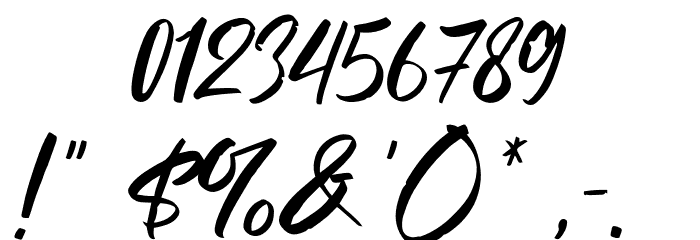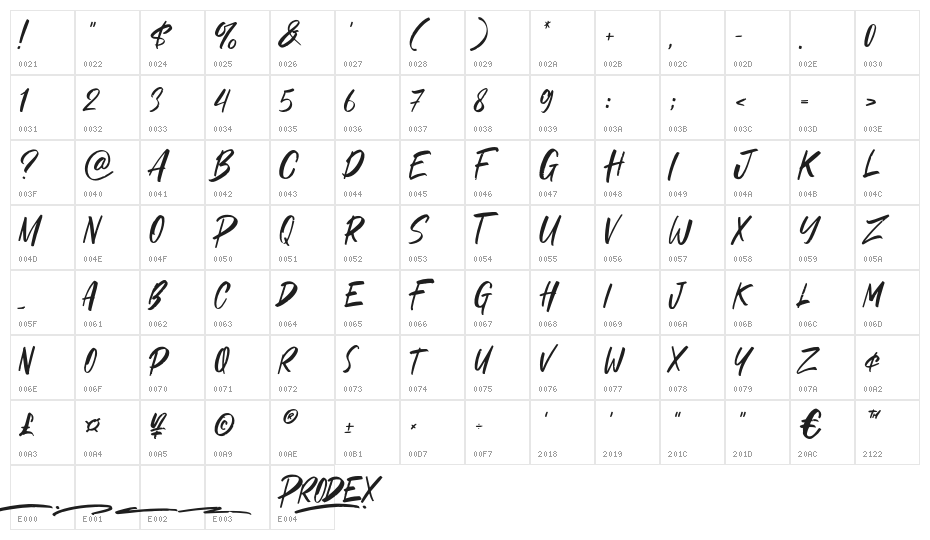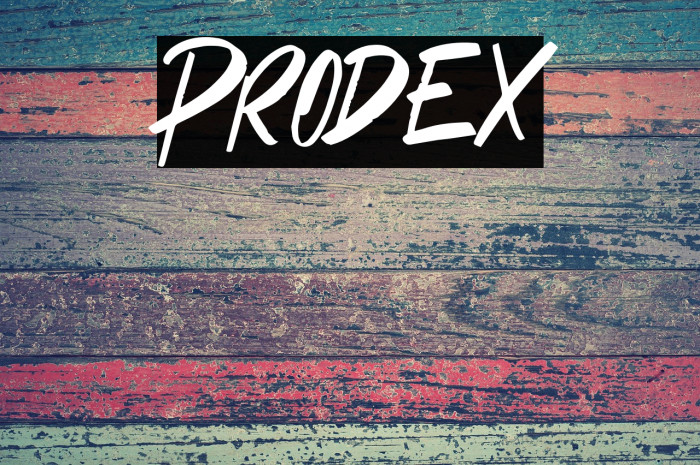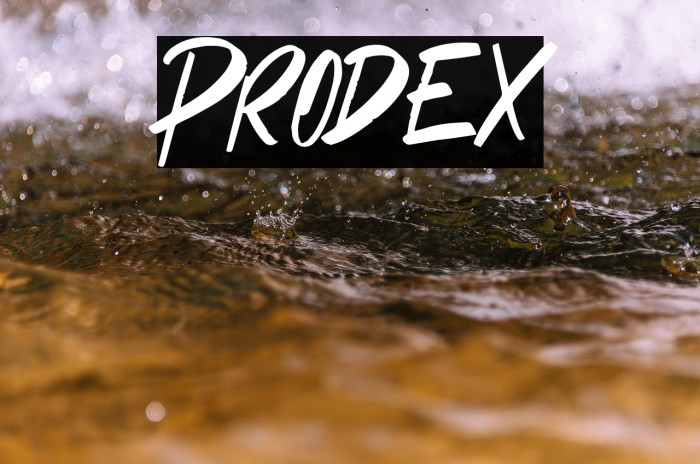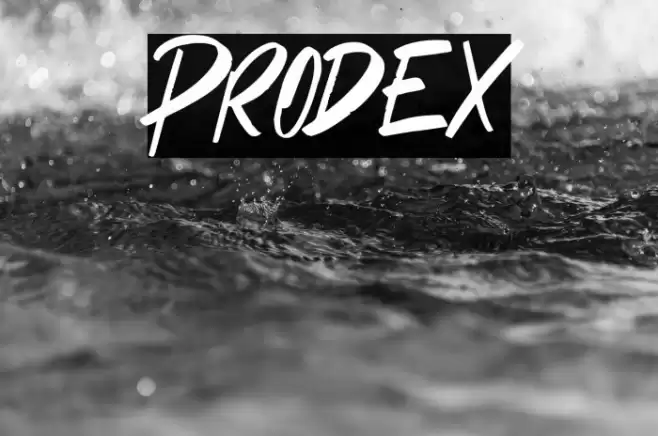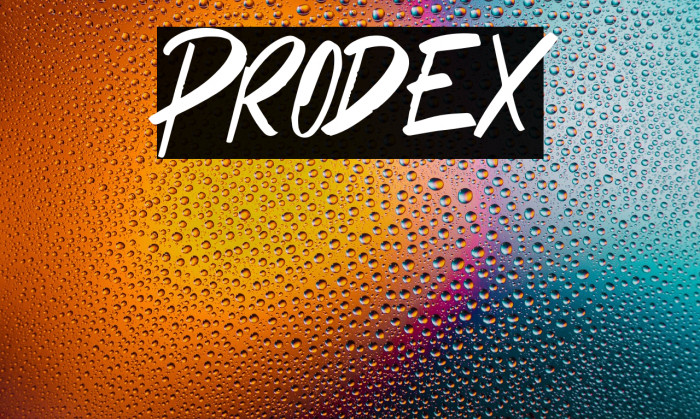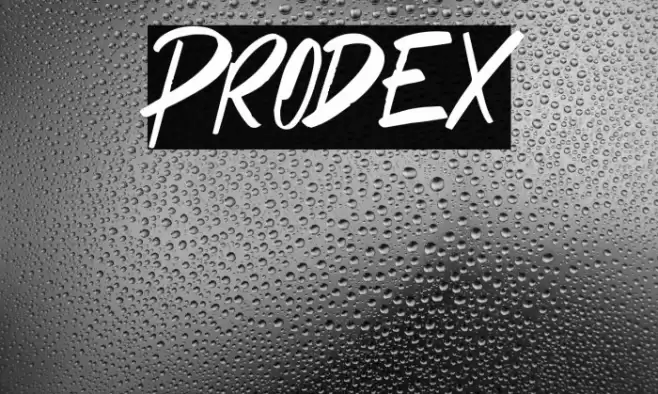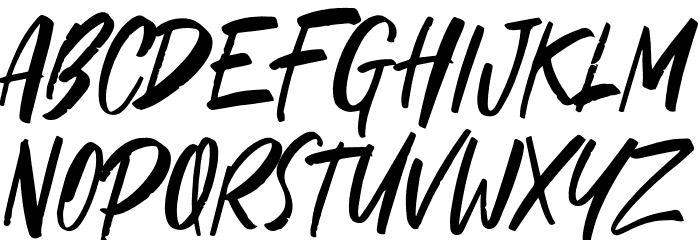
Prodex Font
Prodex Description
This font exudes a dynamic and energetic vibe with its bold, brush-like strokes. The letters are crafted with a sense of motion, giving them a lively and spontaneous appearance. The uppercase and lowercase characters maintain a consistent style, with slightly irregular edges that add to the hand-drawn aesthetic. Numbers and special characters are equally expressive, making the font versatile for various creative applications. The overall design is modern and artistic, suitable for projects that require a personal touch.
| Overall Style | Modern, Artistic |
| Use Case | Logos, Headlines, Posters |
| Proposed Projects | Ideal for branding, posters, social media graphics, and any project needing a lively, hand-crafted look. |